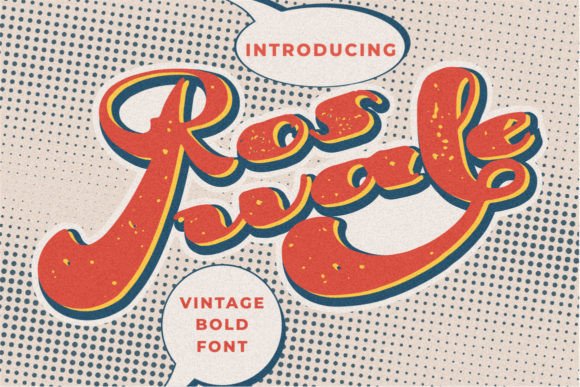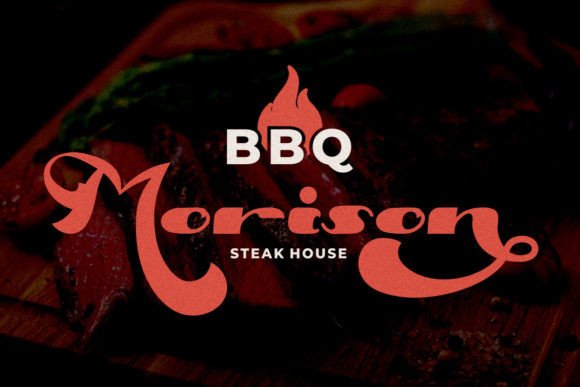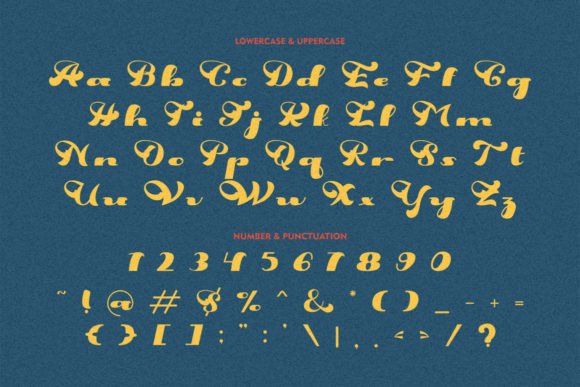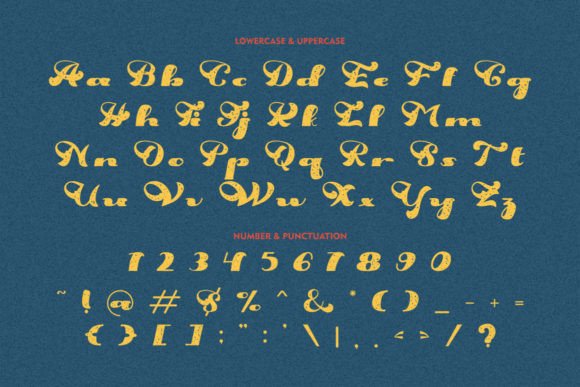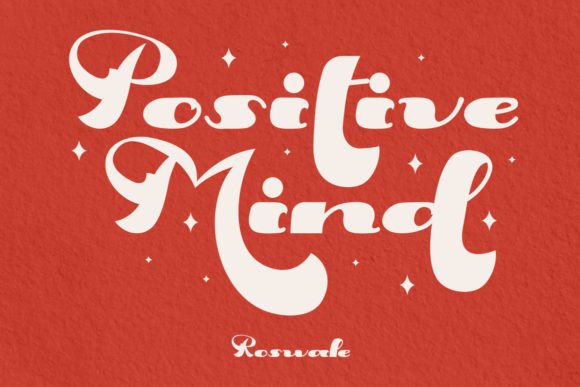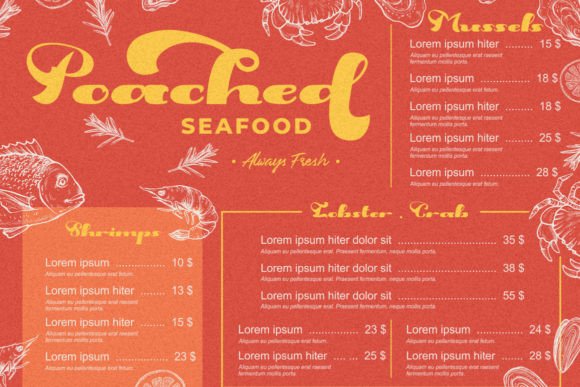
About Roswale Font
Roswale is a bold, vintage-style script display font. No matter the topic, this font will be an incredible asset to your fonts’ library, as it has the potential to elevate any creation. This font is PUA encoded which means you can access all the glyphs and ligatures with ease!